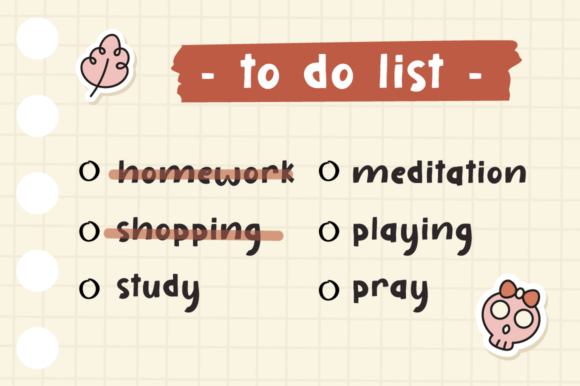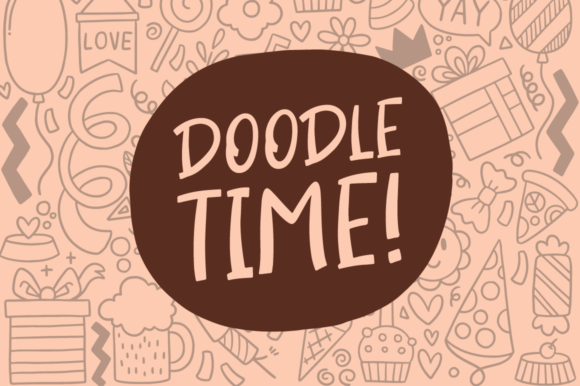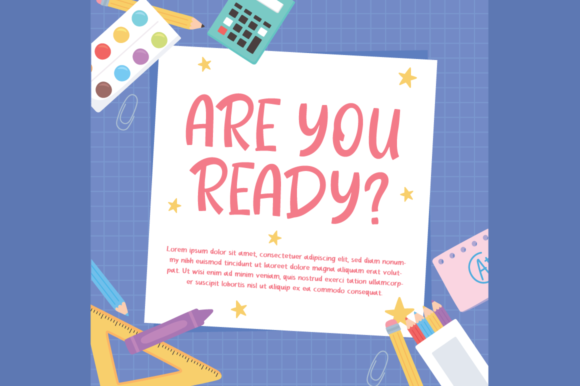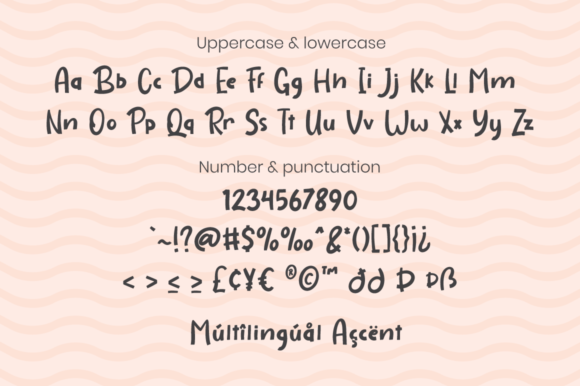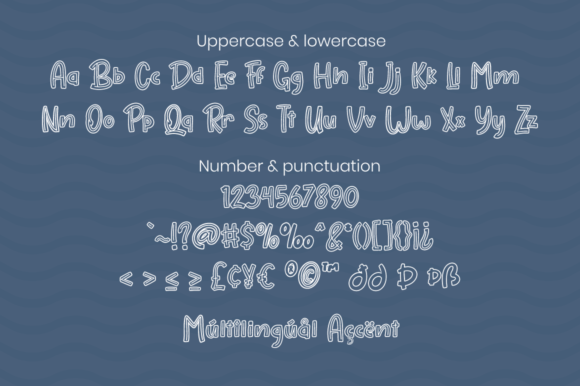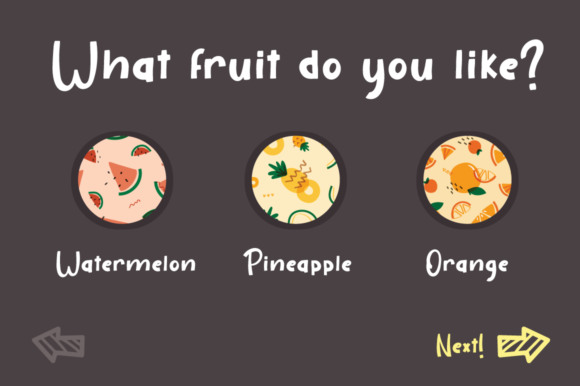
Introduction to Hot Ruby Font
Who hasn’t been there – stuck on a creative project, desperately searching for the perfect font to bring their vision to life? It’s a moment we’ve all experienced at some point or another. And then, like a breath of fresh air, you stumble upon it – a font that exudes warmth, playfulness, and authenticity. For designers, this moment is a game-changer, and it’s exactly what the Hot Ruby Font embodies.
- High-quality, unique font design perfect for creative projects and design resources.
- Unique characteristics include a bold, modern aesthetic and a transparent background, making it perfect for creative and artistic applications.
- Perfect design resource for creating eye-catching headlines, titles, and other typography elements in your creative project.
Honest Review: Hot Ruby Font
I recently stumbled upon the Hot Ruby Font and I must say, it’s a game-changer for any design project. This beautiful, elegant font is a must-have for any designer looking to add a touch of sophistication to their work.
What works well: ✨ High-quality design, perfect for creative projects that require a luxurious feel. The font is incredibly versatile and can be used for a variety of purposes, from titles and headings to body text.
What I particularly love about the Hot Ruby Font is its transparency feature, which allows for seamless integration with images and backgrounds. This feature is especially useful when working with photos or graphics that have a transparent background.
Some limitations: ⚠️ The font may not be suitable for all design projects, particularly those that require a more modern or minimalist aesthetic. Additionally, the font may not be as customizable as some other design resources.
Overall, I’m thoroughly impressed with the Hot Ruby Font and would highly recommend it to any designer looking for a high-quality, elegant font for their creative project.
- Perfect for creative projects that require a luxurious feel
- Transparency feature allows for seamless integration with images and backgrounds
Hot Ruby Font
Tips for Getting the Most Out of Hot Ruby Font
Here are some tips to help you get the most out of the Hot Ruby Font: use it in combination with other design elements, experiment with different font sizes and colors, and don’t be afraid to try new things.
The Hot Ruby Font is versatile and can be used in a variety of creative projects, including: logo design, graphic design, typography, and more. Its unique style and transparent background make it perfect for adding a touch of elegance and sophistication to your designs.